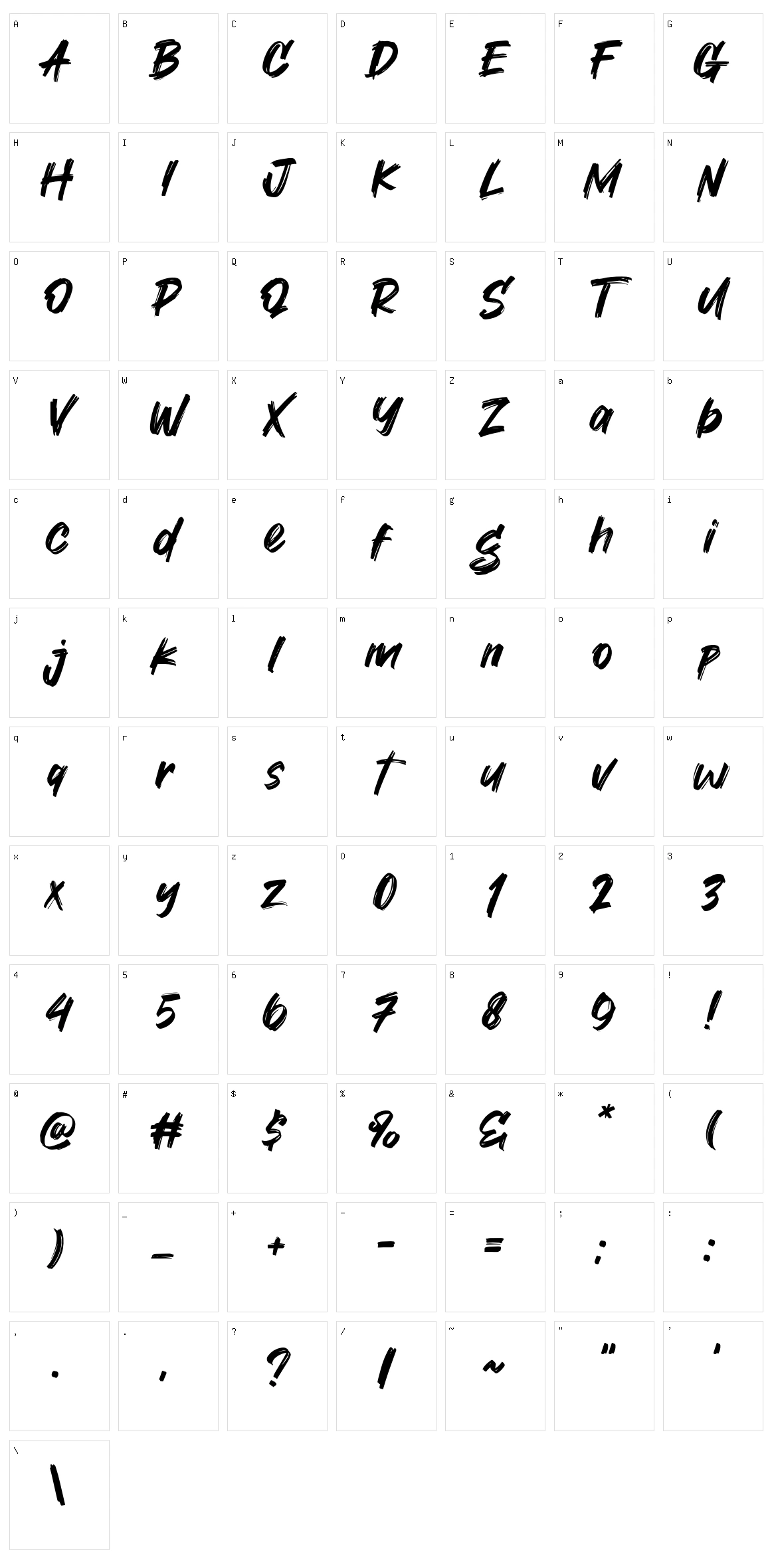
The free font Deep Hero is carefully designed by Khurasan, showcasing a thoughtful balance of creativity and usability and falls under the Script font style. When you download the ZIP file, it contains only 696.74 KB of font files, making it lightweight and quick to download. Please review the license details below to understand permitted usage and distribution rights. If license information is not available, we recommend using this font for personal projects only or contacting the author directly for commercial usage permissions.